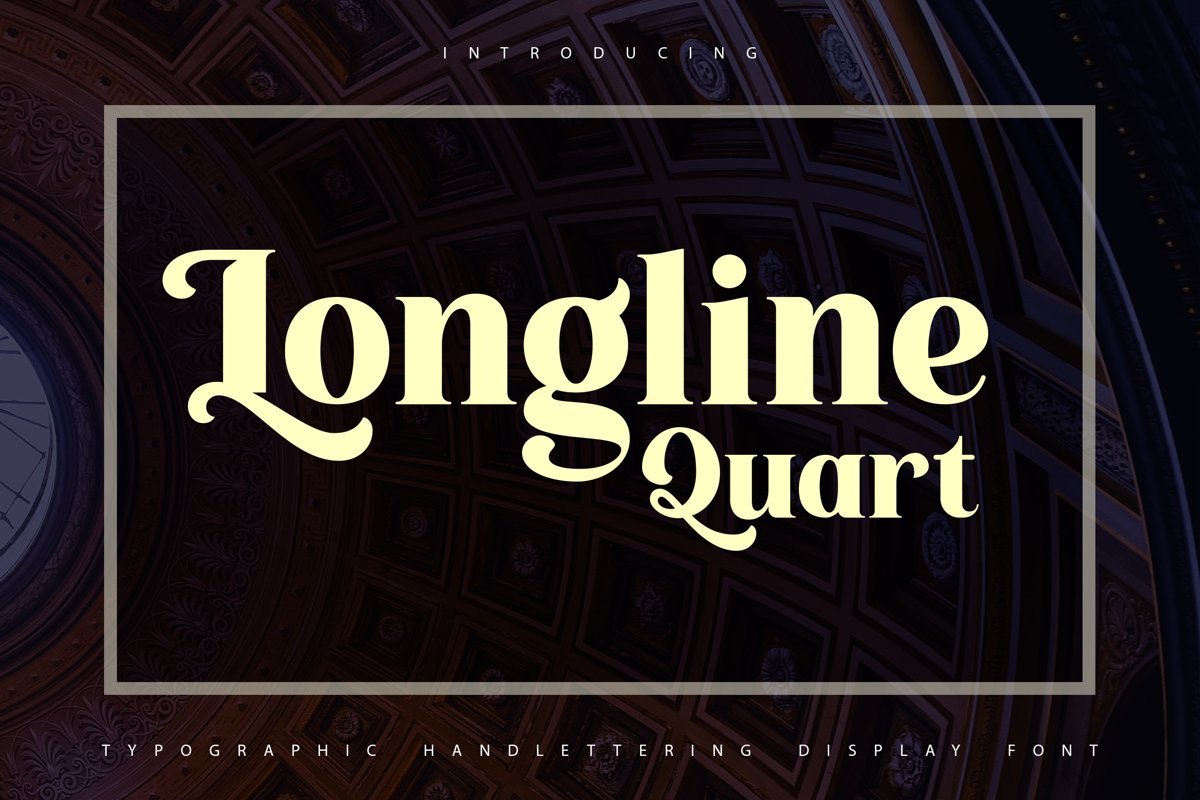
Longline Quart | Typhographic Handlettering Display Font
Longline Quart
**Longline Quartz | Typoghraphic Handlettering Display Font** with a calligraphy style, So beautiful on invitation like greeting cards, branding materials, business cards, quotes, posters, and more!
The alternative characters were divided into several Open Type features such as Stylistic Sets, Stylistic Alternates, Contextual Alternate, SWASH and Ligature. The Open Type features can be accessed by using Open Type savvy programs such as Adobe Illustrator, Adobe InDesign, Adobe Photoshop Corel Draw X version, And Microsoft Word. And this Font has given PUA unicode (specially coded fonts). so that all the alternate characters can easily be accessed in full
* Tons of glyphs
* Alternates and Ligatures
* Punctional
* **PUA Encoded Characters** - Fully accessible without additional design software.
* Fonts include **Multilingual Support**